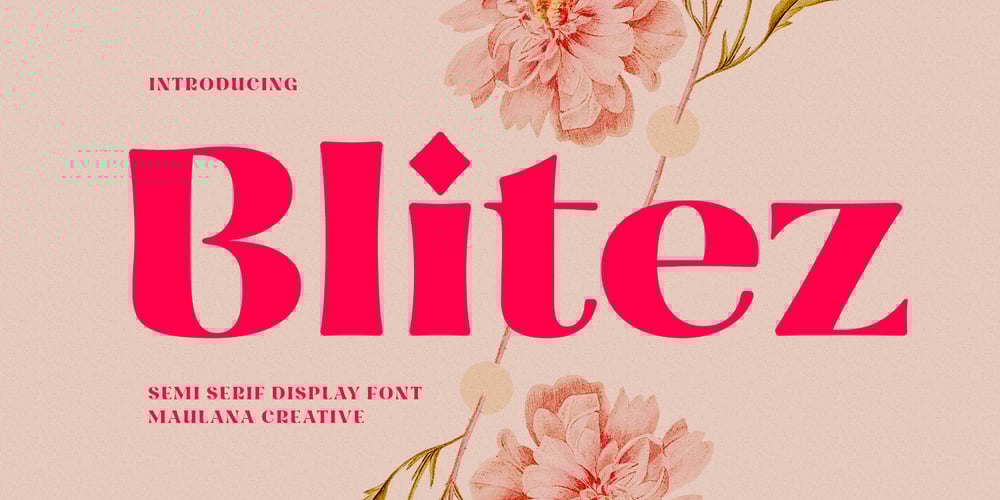
MC Blitez Font Family was designed by Gilang Maulana and published by Maulana Creative. MC Blitez contains 1 styles and family package options. Blitez is a modern semi serif display font. Bold stroke, fun character with a bit of ligatures and alternates. To give you an extra creative work. Blitez font support multilingual more than 100+ language. This font is good for logo design, Social media, Movie Titles, Books Titles, a short text even a long text letter and good for your secondary text font with script or serif. Make a stunning work with Blitez font. Cheers, Maulana Creative